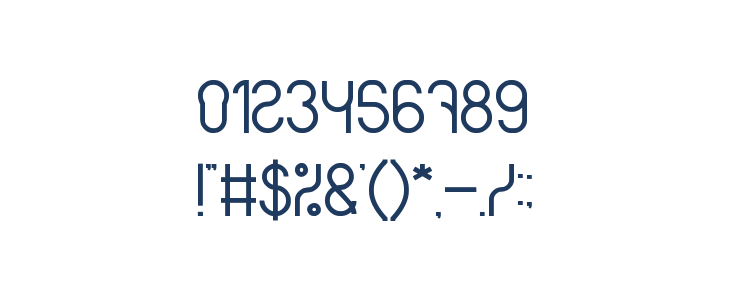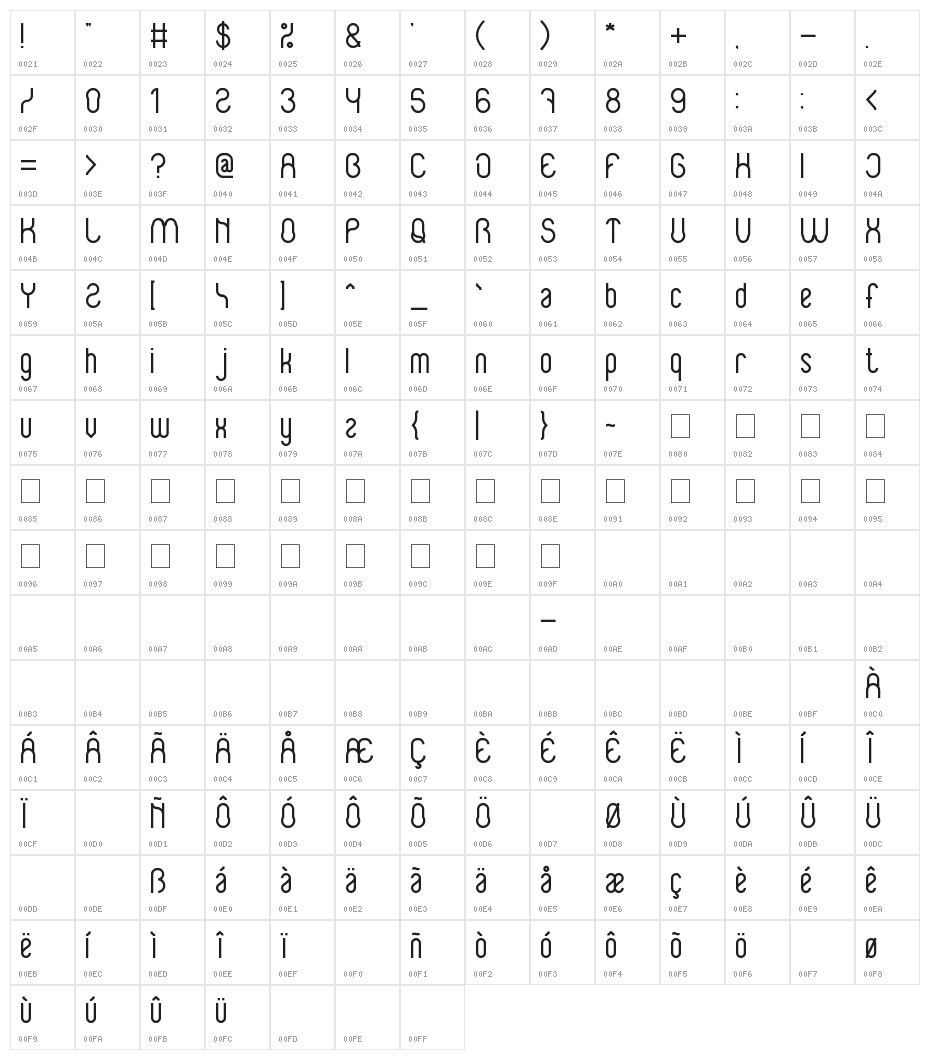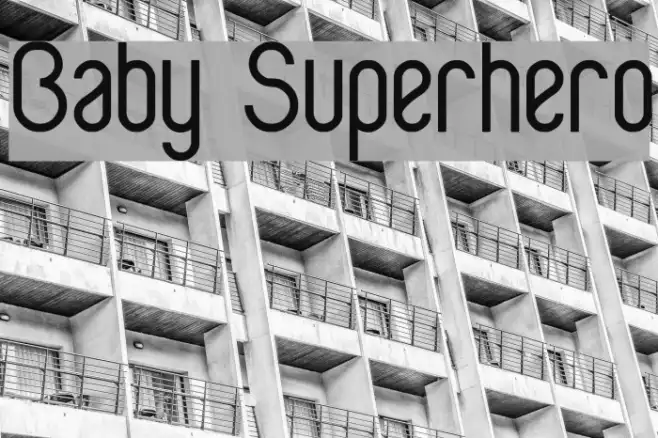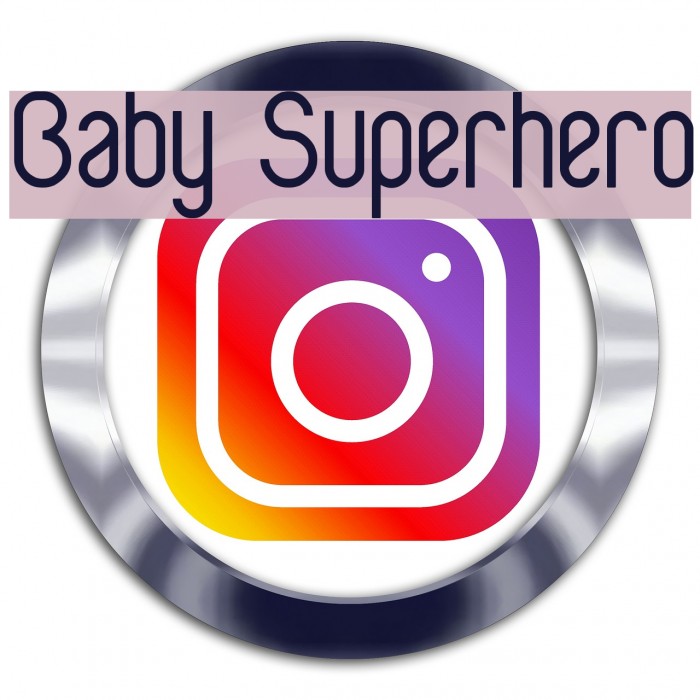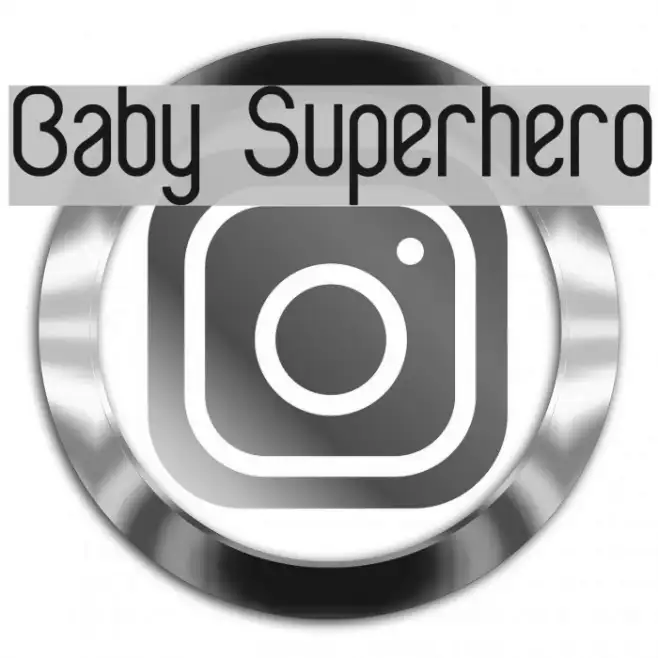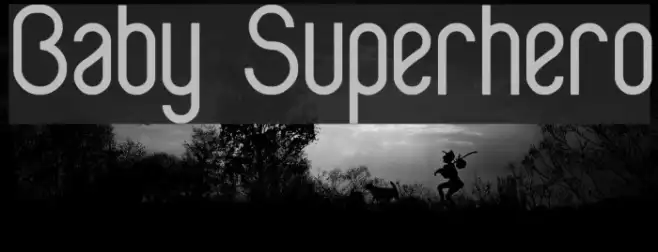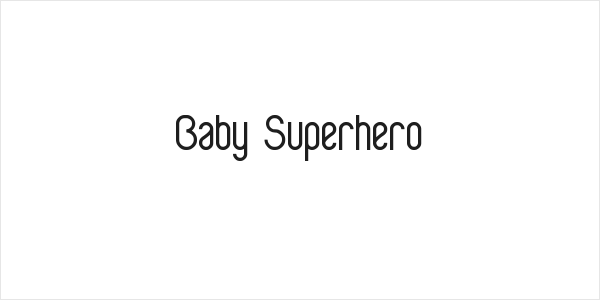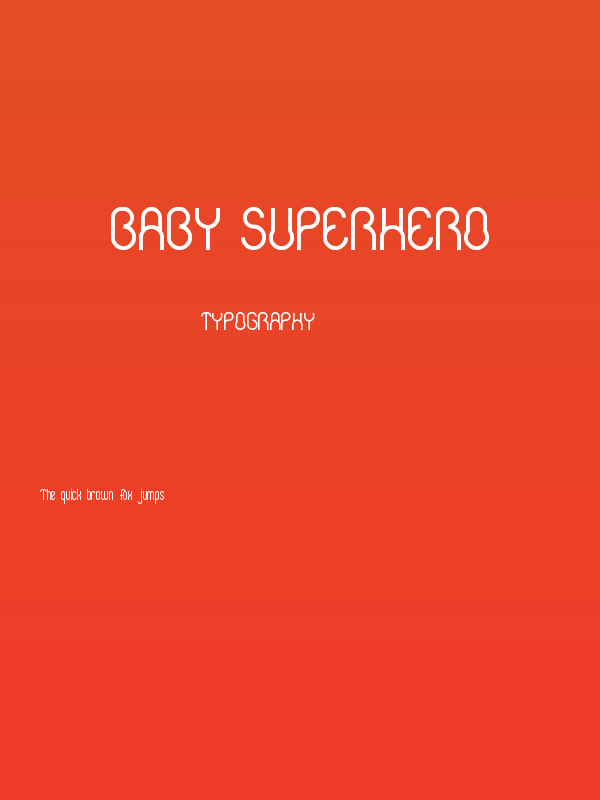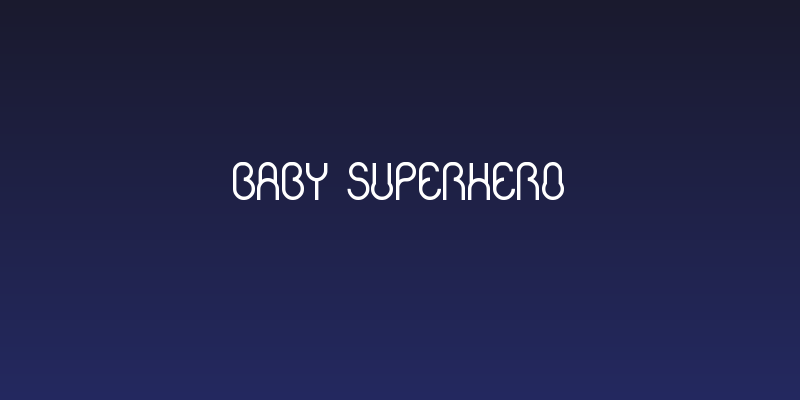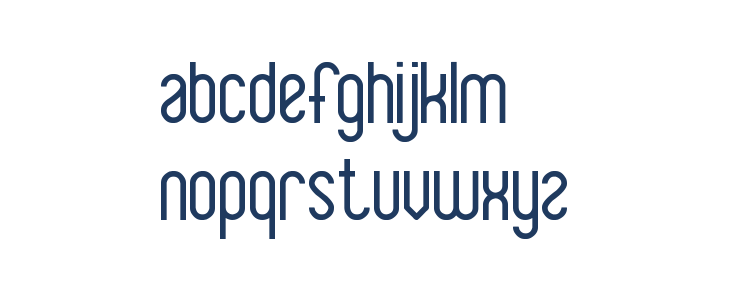
Baby Superhero Font
Baby Superhero Description
This font features a playful and modern design with a unique blend of rounded and angular elements. The uppercase letters exhibit a consistent height and width, creating a harmonious and balanced appearance. The lowercase letters maintain a similar style, with some characters like 'a' and 'g' showcasing distinctive loops and curves. The numerals are bold and easily readable, making them suitable for various applications. Special characters are designed with the same playful aesthetic, ensuring consistency throughout the typeface. The overall look is clean and contemporary, making it ideal for projects that require a touch of fun and creativity.